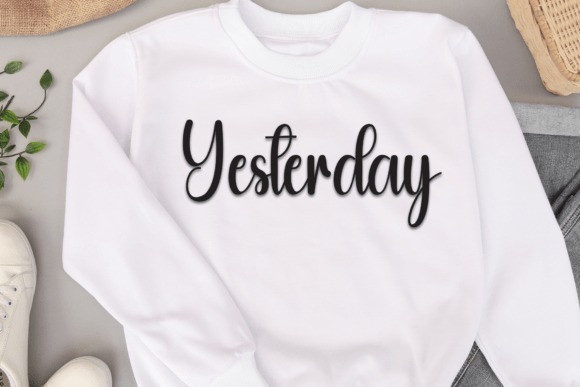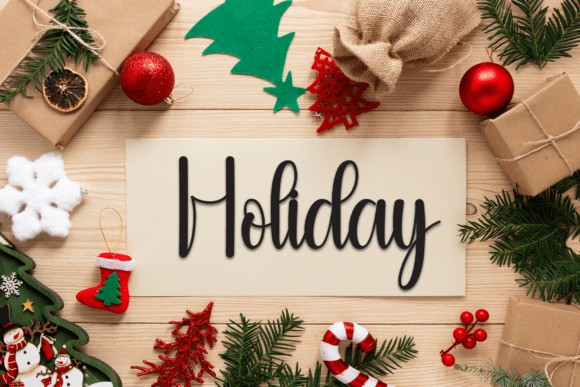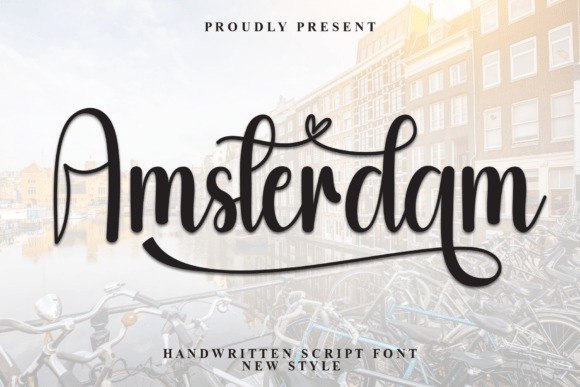
Amsterdam Handwritten Type
Amsterdam Handwritten Type is a stylish handwritten script font that blends modern elegance with a playful touch. Its fluid strokes and charming curves bring a personal feel to any design. Ideal for logos, packaging, and invitations, this typeface adds warmth, sophistication, and creativity to every project.